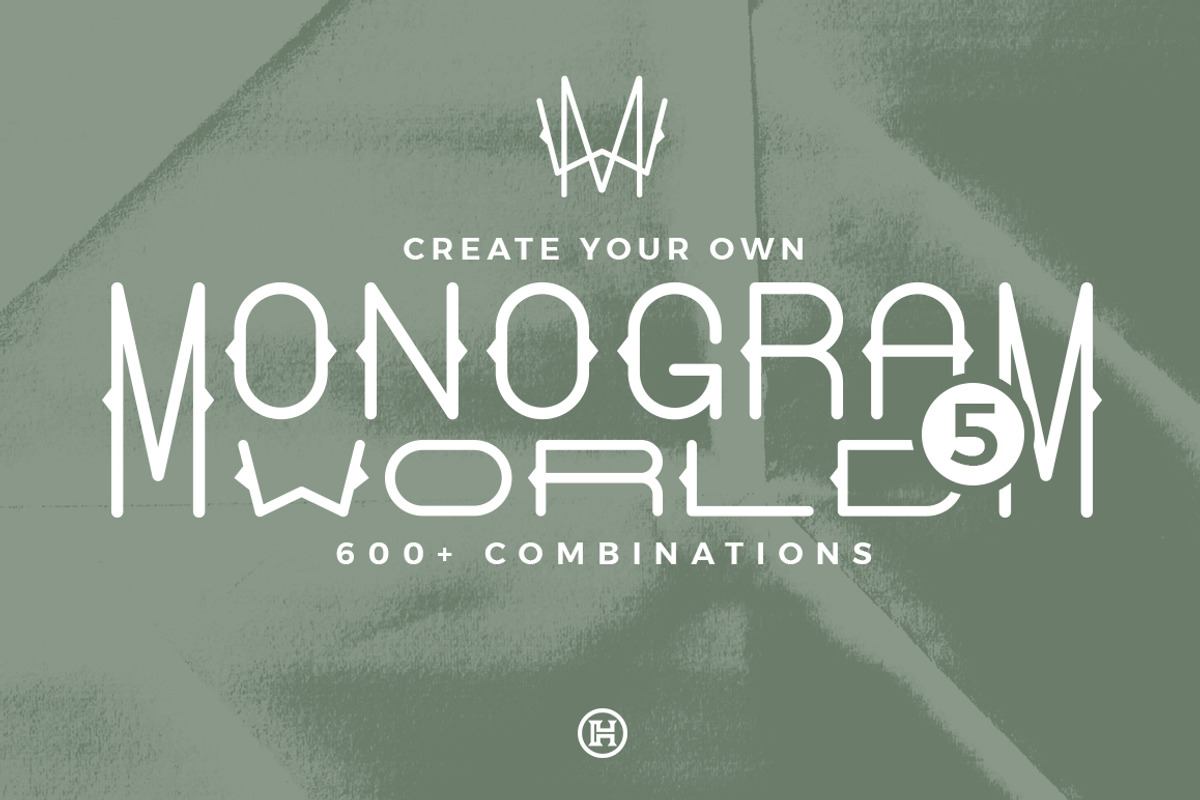
Monogram World Deco Font Free Download is a luxurious and elegant typeface inspired by the iconic Art Deco era. With its geometric lines, vintage flair, and monogram-ready design, this font is perfect for wedding stationery, upscale branding, product packaging, and sophisticated logo design.
Whether you're channeling the glamour of the 1920s or adding timeless class to modern projects, Monogram World Deco Font Free Download brings instant style and refinement. Its intricate design is ideal for initials, title treatments, or any layout that needs a touch of golden-age opulence.
Designers looking to evoke a sense of luxury, prestige, and vintage charm will find this font to be a powerful asset. Pair it with minimal sans-serif fonts for a high-end contrast or use it solo to steal the spotlight.
Let your designs speak in the language of elegance with Monogram World Deco—where every letter feels like a work of art.